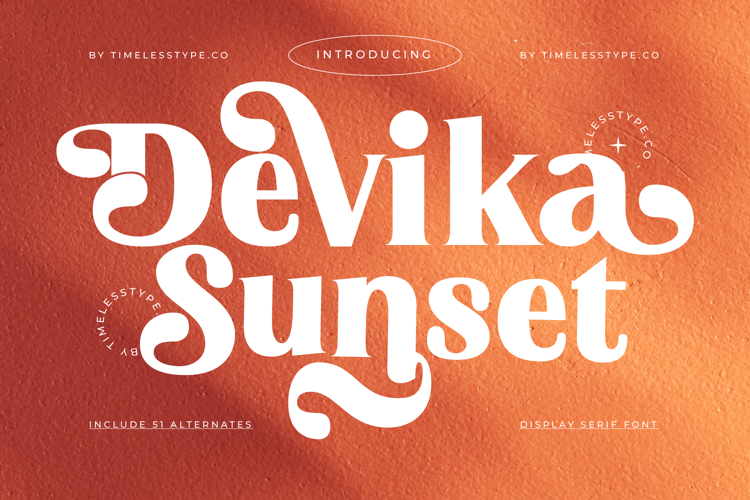
Devika Sunset - Display Serif Font
The Devika Sunset Typeface is a modern display serif font with a bold, artistic, and decorative style. Featuring 51 stylistic alternates, this typeface offers wide flexibility to create typography that feels elegant, expressive, and visually diverse. Its thick letterforms combined with sweeping swash ornaments bring a retro-contemporary charm that is graceful yet full of character, making it an excellent choice for a variety of creative design projects.
This font is highly effective in editorial design, particularly for magazine covers, feature spreads, and artistic book covers. Its decorative alternates add dynamic flair, ensuring every layout appears unique and eye-catching.
In branding and packaging, Devika Sunset is ideal for fashion, perfumes, cosmetics, artisan beverages, and lifestyle brands. Its bold, ornamental serif aesthetic conveys exclusivity and makes logos and visual identities more memorable.
For entertainment and promotional design, this font provides a theatrical and dramatic atmosphere, making it perfect for movie posters, album covers, event branding, and art festivals. Its decorative swashes enhance visual storytelling with an elegant and captivating aura.
In the realm of digital design, Devika Sunset performs beautifully across social media content, website branding, digital campaigns, and motion graphics, maintaining clear readability even with its striking decorative details. With multilingual support, it remains relevant and adaptable for global projects.
In short, Devika Sunset Typeface is a decorative serif display font designed to deliver elegance, visual strength, and retro-modern style. Perfect for editorial, branding, packaging, entertainment, advertising, and digital campaigns, this font transforms typography into a timeless, stylish, and character-rich design element